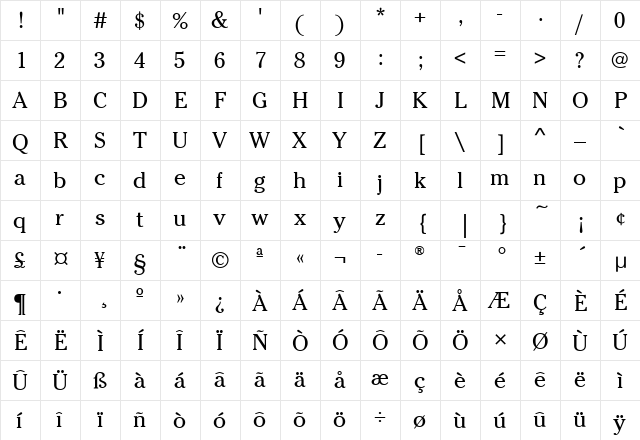
CheltenhamBookITC Medium Font Preview
CheltenhamBookITC Medium
CheltenhamBookITC Medium Font Details
Design Context for CheltenhamBookITC Typeface
CheltenhamBookITC offers clean, dependable letterforms without strong stylistic allegiance, making it a practical choice for designers who need flexibility.